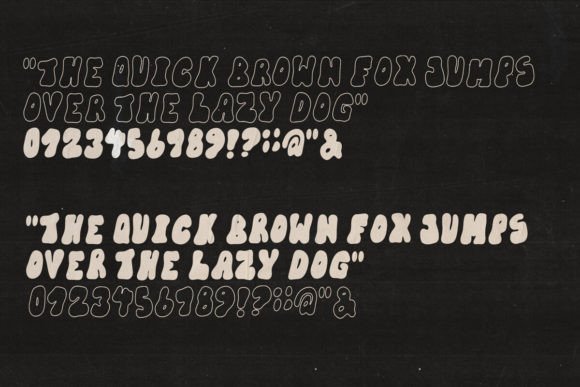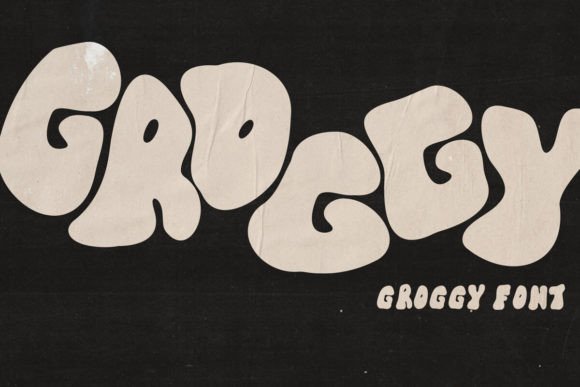
Introducing Groggy Font: The Ultimate Y2K-Inspired Design Companion
Have you ever been in the middle of a design project, and suddenly, you’re stuck on finding the perfect font? I recall a particularly frustrating experience while working on a retro-themed poster. My client wanted a font that screamed Y2K era, but everything I tried seemed either too bland or too over-the-top. That’s when I stumbled upon Groggy Font, and it instantly became my go-to for all things fun and bubbly.
The Groggy Font Difference
Groggy Font is more than just a font – it’s an experience. This fantastic bundle includes both Regular and Outlined versions, offering you the flexibility to adapt it to any project. Its thick, bubbly graffiti style is reminiscent of the Y2K era, making it perfect for adding a playful and nostalgic vibe to your designs.
Honest Review: The Good, the Bad, and the Quirky
- ✨ Unique Style: Groggy Font’s distinctive graffiti style sets it apart from more traditional fonts.
- ✅ Versatility: With both Regular and Outlined versions, you can use it for a wide range of projects, from posters to digital content.
- 💻 Easy to Read: Despite its bubbly nature, Groggy Font remains surprisingly legible, even at smaller sizes.
- 🤔 Limited Formality: Groggy Font’s playful nature makes it less suitable for formal or professional projects.
- ⚠️ Overuse: Like any bold font, there’s a risk of overusing Groggy Font. Balance is key to keeping your designs fresh.
Groggy Font supports OpenType features, which allow for advanced typographic control. You can access stylistic alternates, ligatures, and more, depending on the software you’re using. For instance, in Adobe Illustrator, you can find these features under the ‘Character’ panel. Experimenting with these can add an extra layer of customization to your text.
The creator of Groggy Font drew inspiration from the vibrant street art of the late ’90s and early 2000s. Imagine walking through a bustling city, surrounded by colorful graffiti tags and bold, bubbly lettering. This font encapsulates that carefree, rebellious spirit, bringing a touch of urban art to your designs.
Q: Is Groggy Font suitable for professional projects?
A: While Groggy Font is incredibly versatile, its playful nature makes it better suited for creative and informal projects. Use your discretion based on the project’s tone.
Q: Does Groggy Font support OpenType features?
A: Yes, Groggy Font supports OpenType features, allowing you to access a range of stylistic alternates and glyphs.